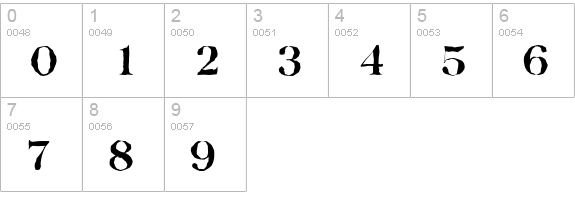
BaskervilleAntique-Bold Font Details
BaskervilleAntique-Bold is a strong, high-contrast variant in the BaskervilleAntique typeface family \xE2\x80\x94 well suited to headlines, attention-grabbing titles, and strong calls-to-action.
BaskervilleAntique-Bold font is a timeless and elegant typeface designed to make a bold statement. With its classic yet modern appeal, this font is perfect for various design projects that require a touch of sophistication and style. The strong and distinctive serifs of BaskervilleAntique-Bold font exude a sense of confidence and professionalism, making it ideal for headings, titles, and other prominent text. The high level of readability and clarity of BaskervilleAntique-Bold font ensures that your message will always stand out, no matter the context. Its versatility allows it to be used in both print and digital design applications, making it a valuable addition to any designer's toolkit. Best of all, BaskervilleAntique-Bold font is available for free download at FontsMarket.com. This means that you can easily access this premium font without any cost, allowing you to elevate your designs without breaking the bank. Don't miss out on the opportunity to enhance your projects with the stunning BaskervilleAntique-Bold font today!